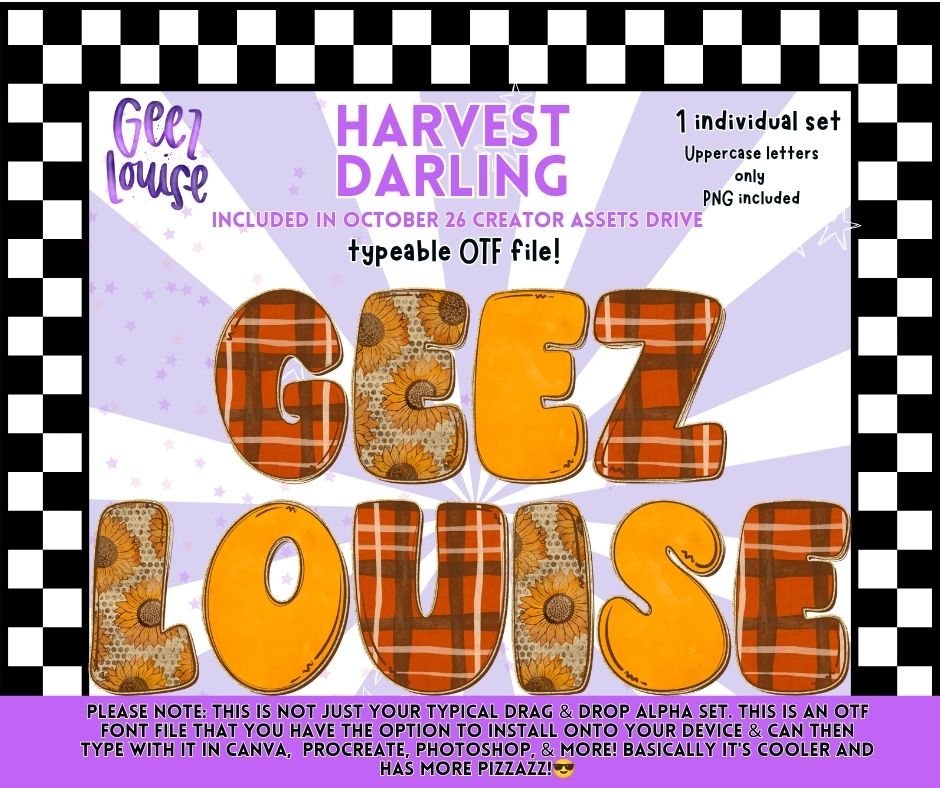
Harvest Darling Fall Alpha | OTF Font + PNG Alphabet
A cozy retro fall alpha featuring sunflowers, warm plaid, and golden autumn tones. Includes 1 typeable OTF font plus uppercase letters as individual PNG files. 🌻🍂